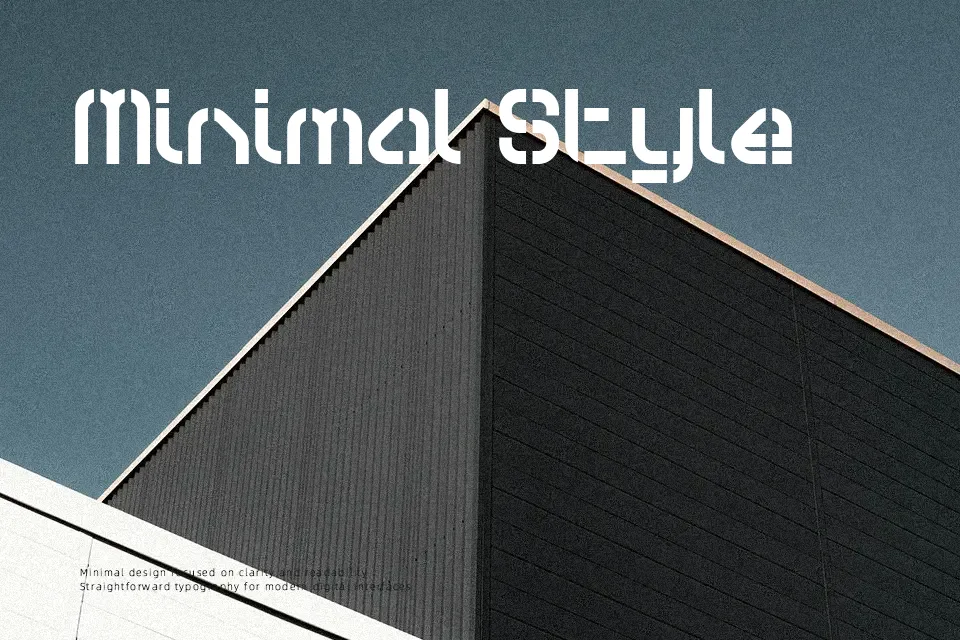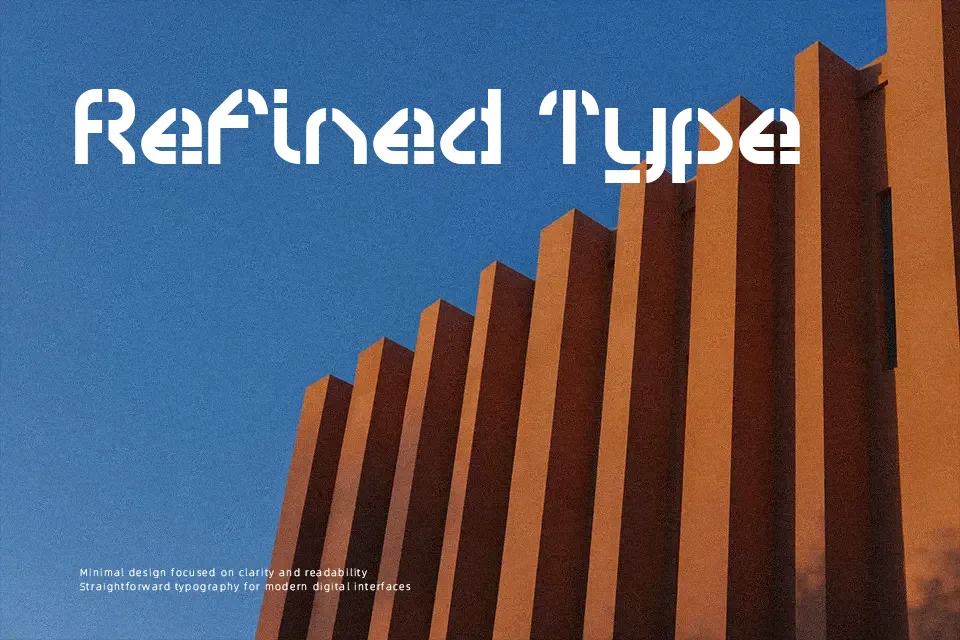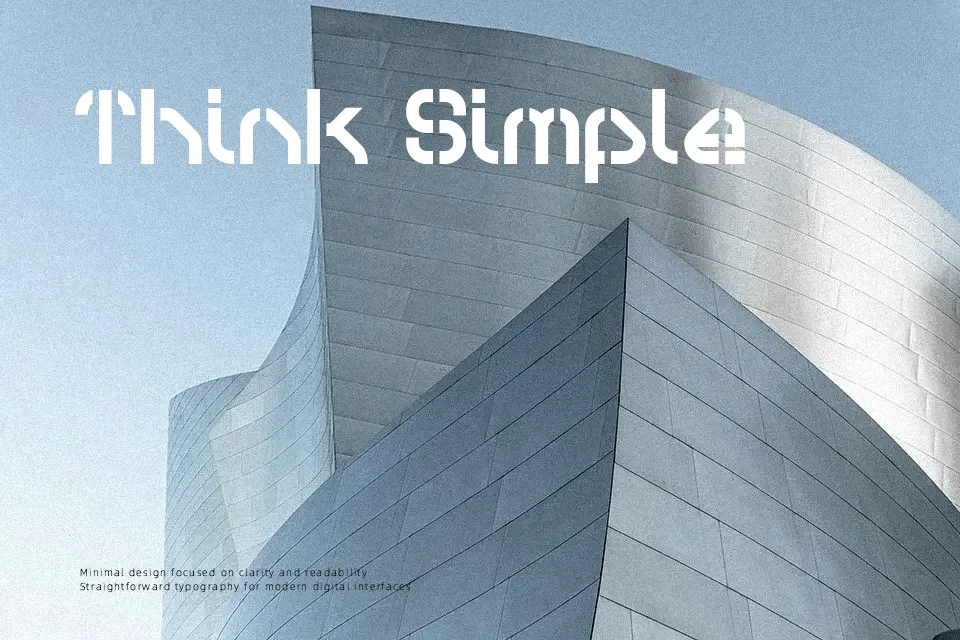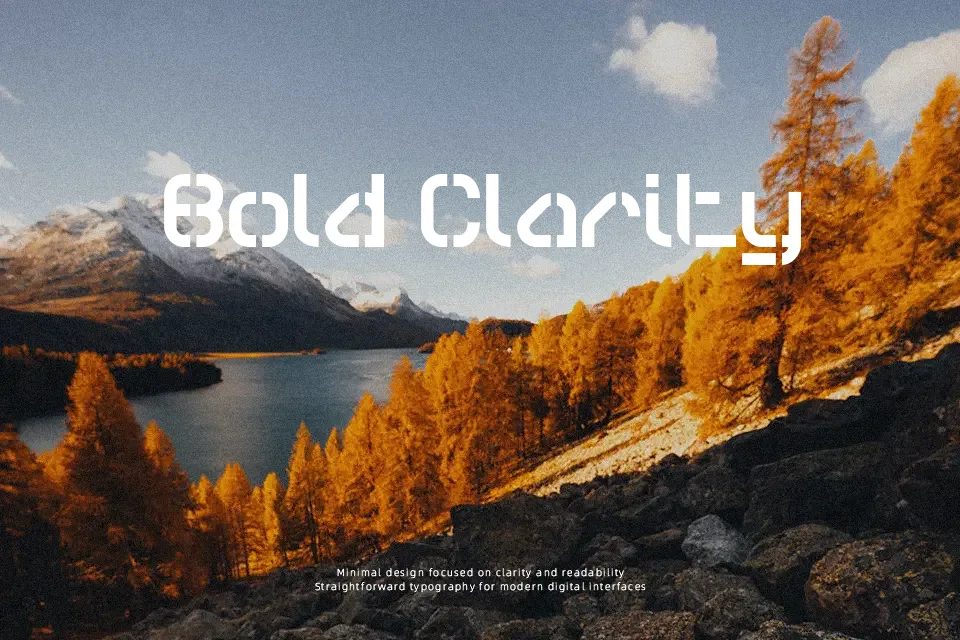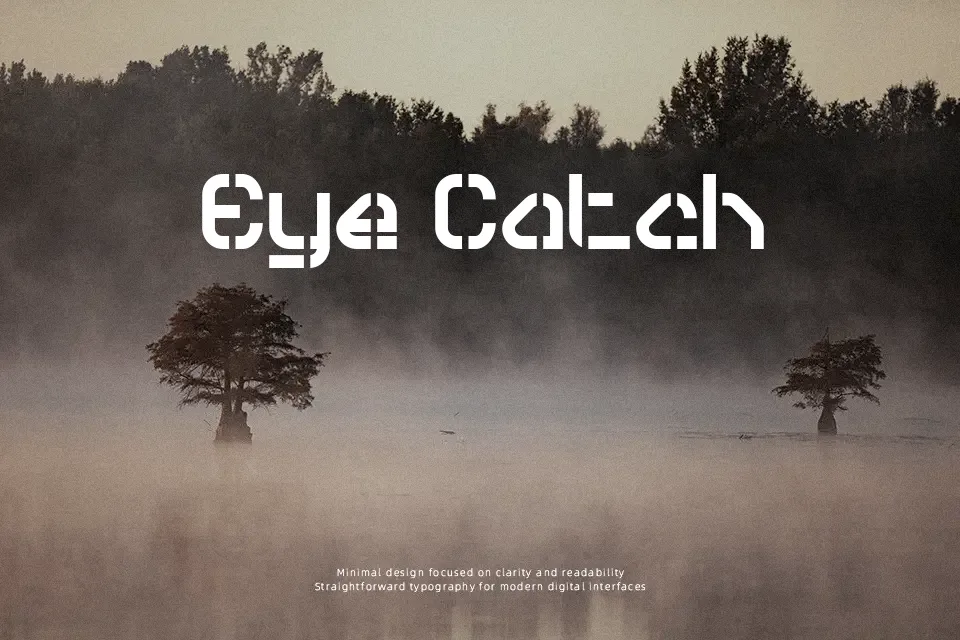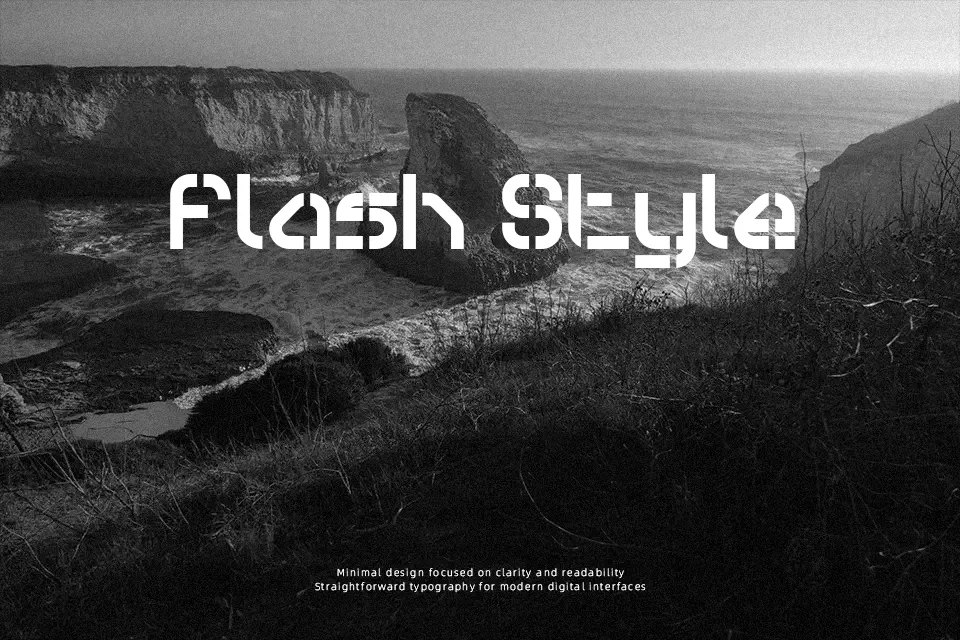
Sylar Stencil Font
Designed by Jonathan Hill
Sylar Stencil Font is a structured display typeface defined by sharp angles, uniform stroke weights, and precisely positioned stencil breaks across each character. The wide letterforms feature consistent horizontal crossbars and squared counters, establishing a mechanical rhythm with tightly controlled character spacing. Across medium and large titles, the design maintains strong legibility and creates an authoritative visual presence on apparel graphics, warehouse signage, and esports merchandise. However, the severed structural junctions and heavy weight quickly become illegible in body copy, making continuous reading impractical. The crisp cutout geometry ensures individual glyphs remain striking when isolated on prominent banners.
Best For: industrial packaging labels, video game title screens, warehouse signage, esports apparel graphics
Not Ideal For: continuous paragraph text, mobile app body copy, legal documents, compact spreadsheet tables
Perfect for branding, gaming, and headline, with a bold and display style.